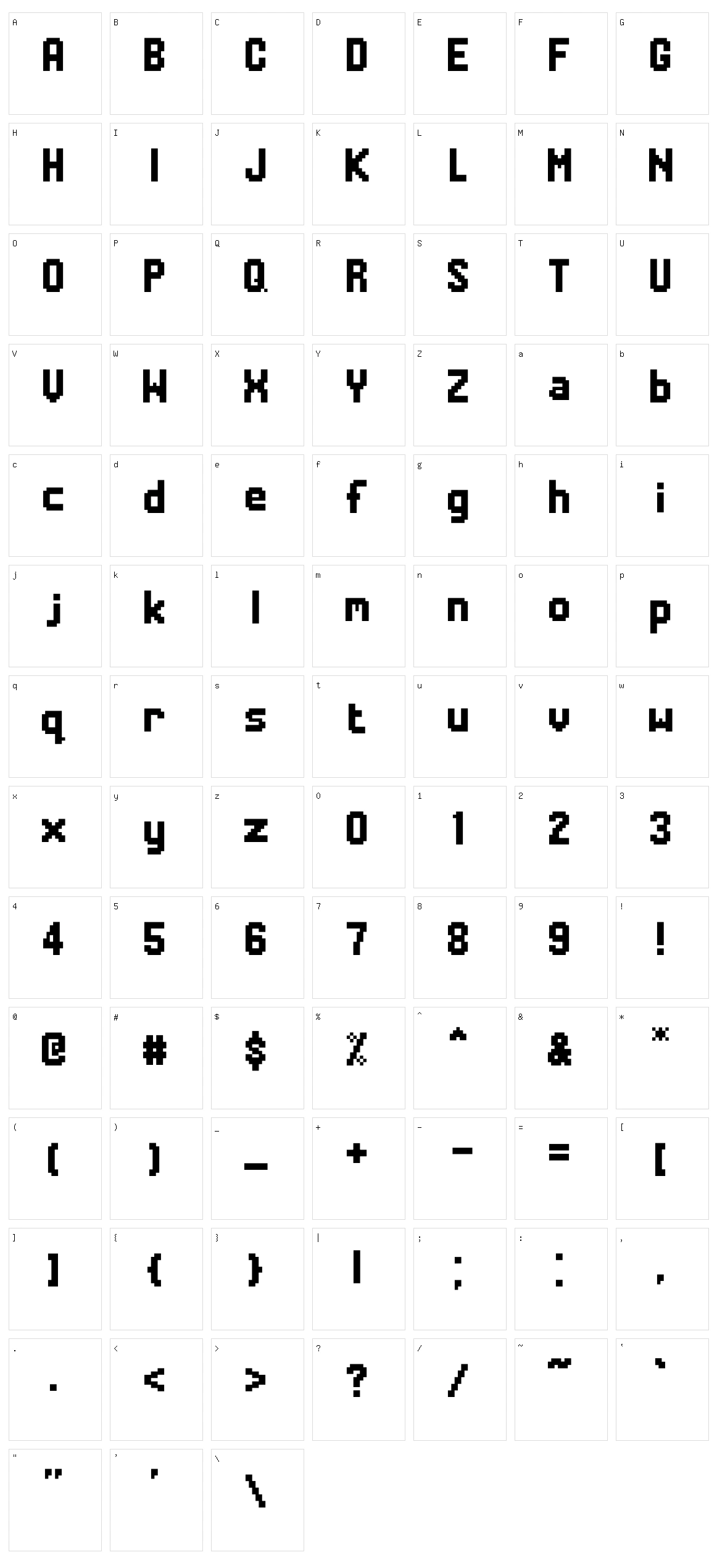
The free font Mania is carefully designed by Sonic Paradox, showcasing a thoughtful balance of creativity and usability and belongs to the Bitmap font family. When you download the ZIP file, it contains only 7.14 KB of font files, making it lightweight and quick to download. Please review the license details below to understand permitted usage and distribution rights. If license information is not available, we recommend using this font for personal projects only or contacting the author directly for commercial usage permissions.